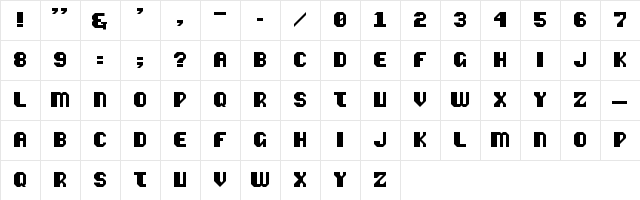
Vipond Octic Regular
| Designer | James Vipond |
Design Context for Vipond Octic Typeface
Vipond Octic offers clean, dependable letterforms without strong stylistic allegiance, making it a practical choice for designers who need flexibility.